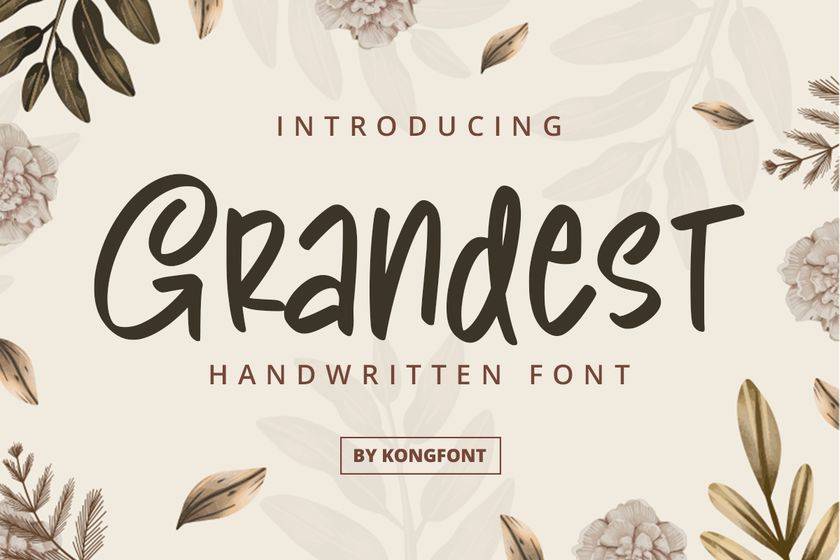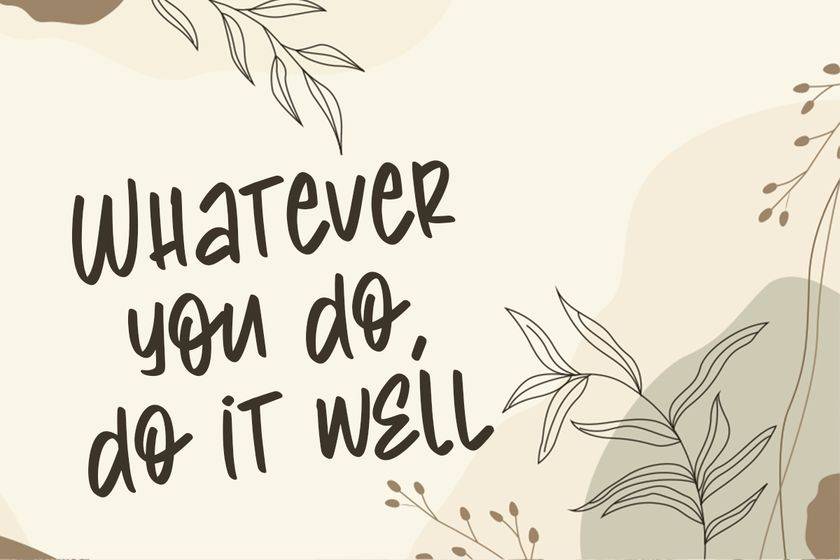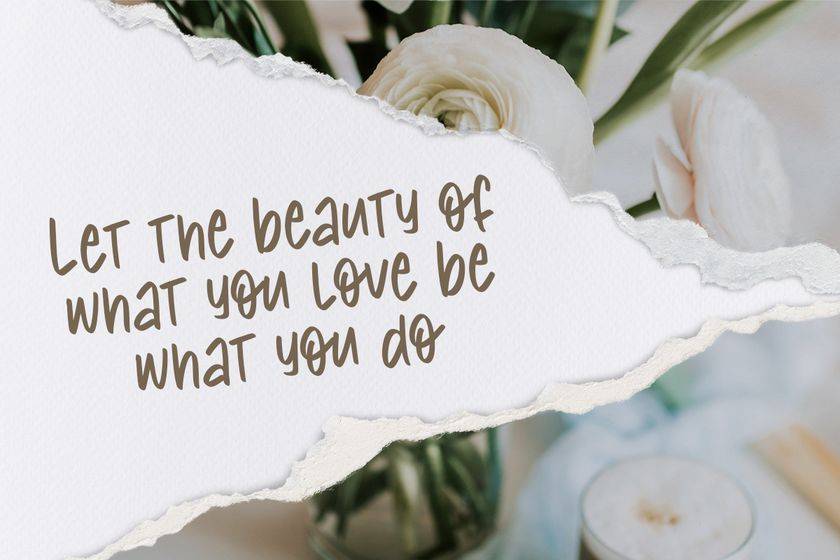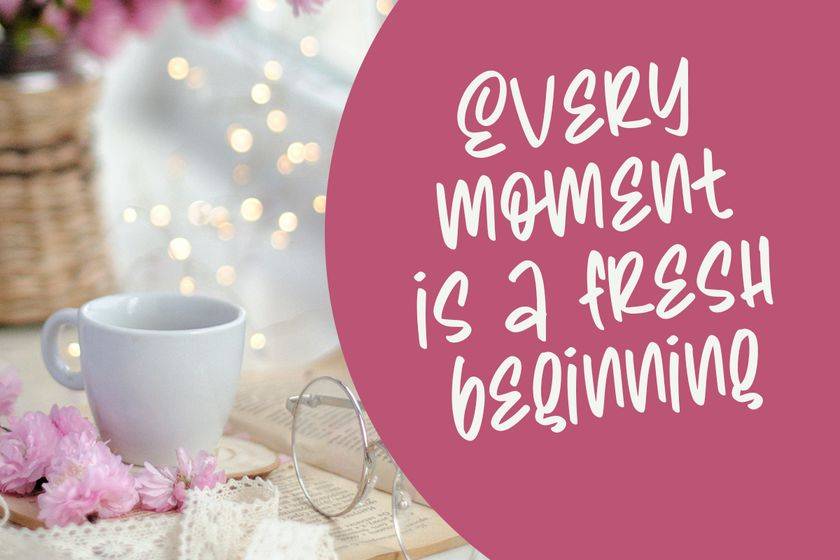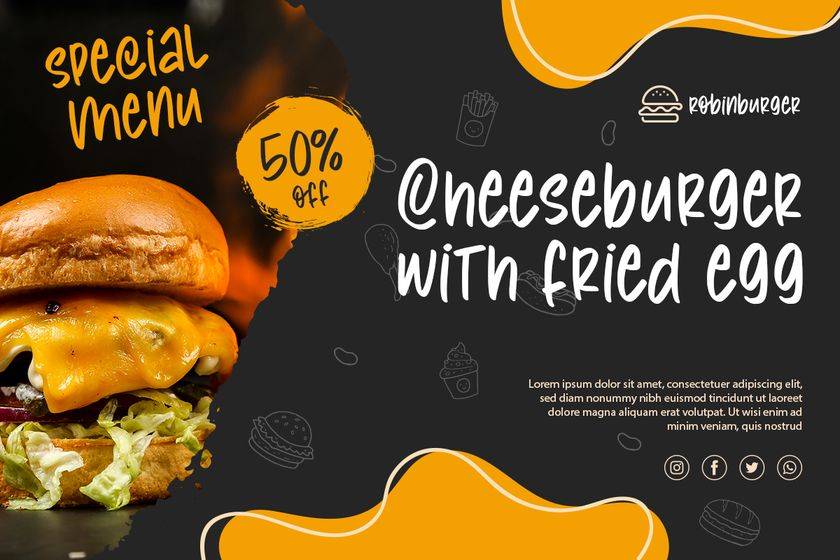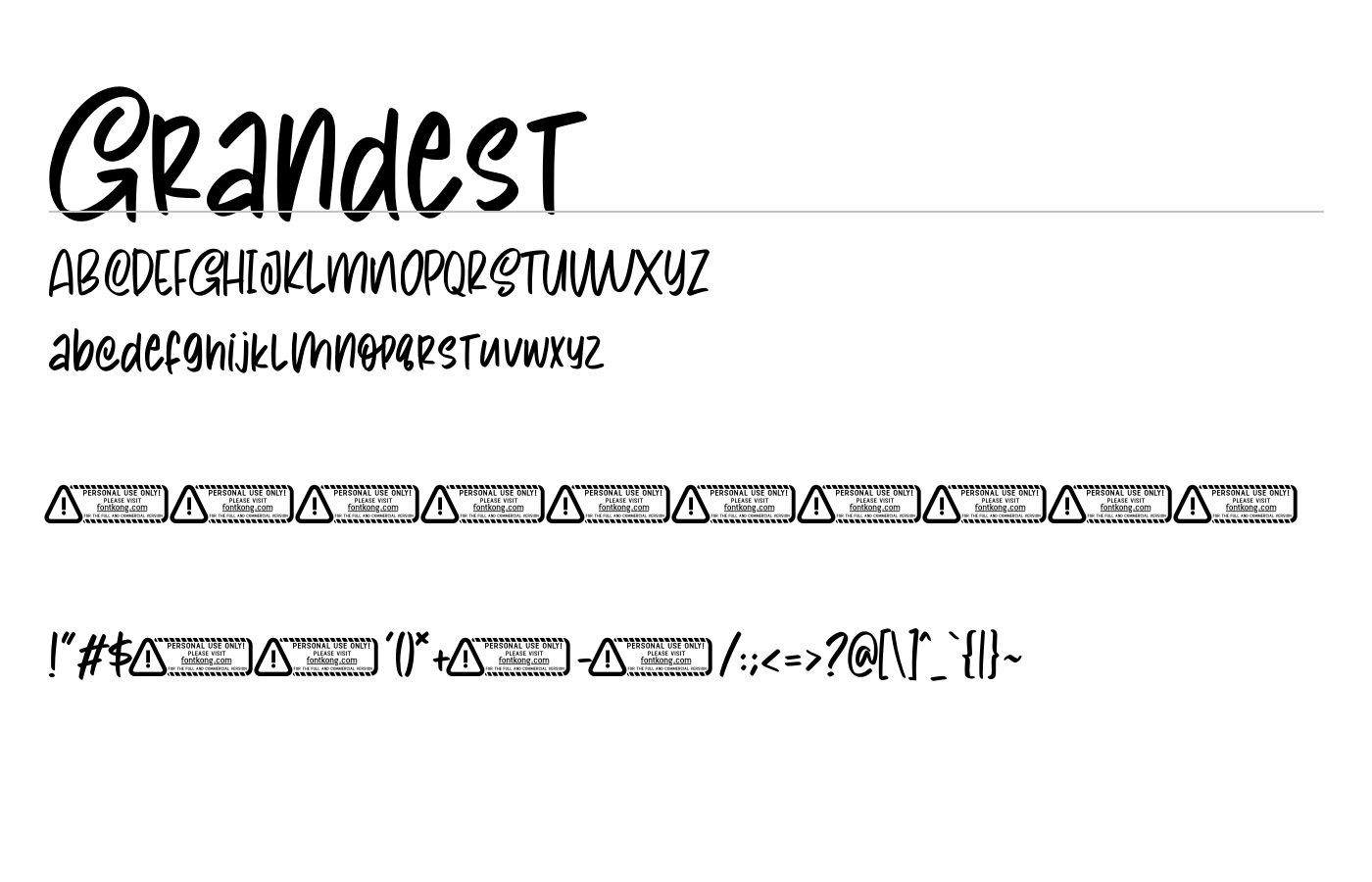
Grandest Font is a lively and casual handwritten typeface featuring playful, irregular letterforms with varying stroke widths that create a friendly and approachable vibe. Its tall x-height and loosely spaced characters make it highly legible while maintaining an informal, creative feel, perfect for branding, posters, and social media designs that want to convey warmth and personality. This font shines in fun, youthful contexts where spontaneity and authenticity are key.
Grandest Font
About Grandest Font
| Font family | Grandest Font |